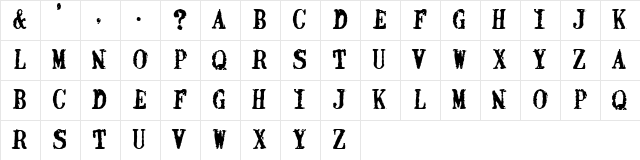
erated b d b
Style: d b
erated b Family
erated b d b
Complete erated b d b glyph index. Displaying only characters natively supported by erated b d b font.
Design Context for erated b
erated b is a composed and adaptable typeface that performs quietly and consistently across a wide range of design contexts.